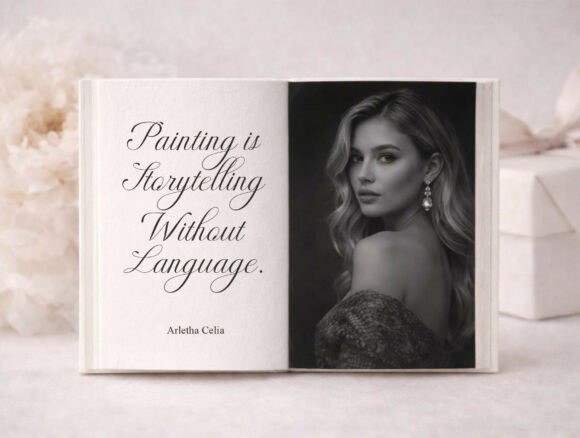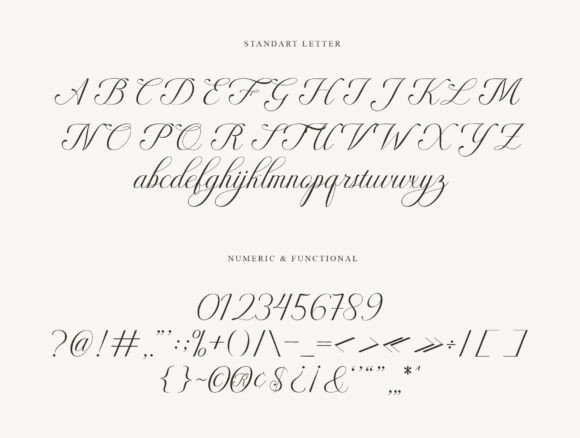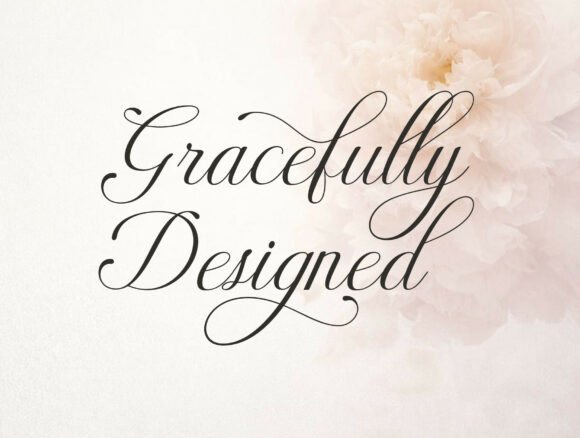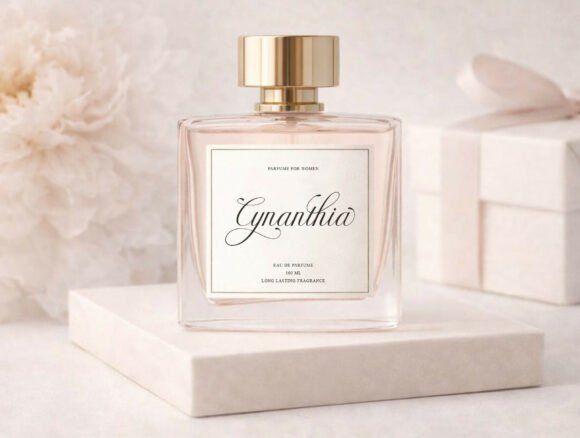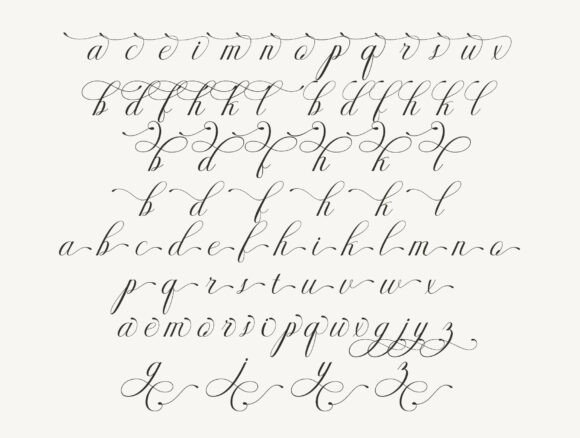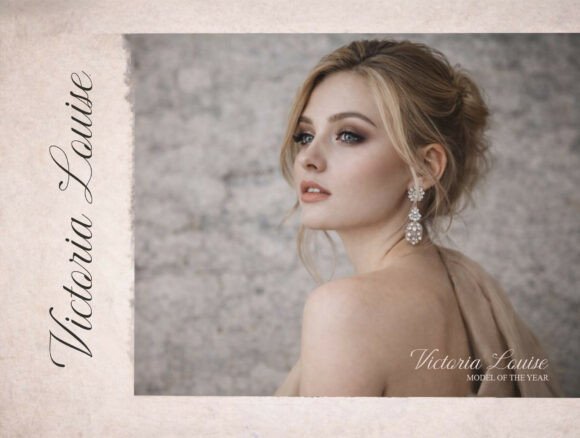
The Elusive Perfect Font: My Journey with Cynthera Grace
I still remember the design project that had me on a font hunt for what felt like an eternity. My client needed a sophisticated, feminine touch for their luxury perfume branding, and I was determined to find the perfect script font. After hours of scrolling through font libraries and testing out various options, I stumbled upon Cynthera Grace. It was love at first sight! 💕
This elegant script font has been a game-changer for my design projects, and I’m excited to share my experience with you. In this article, we’ll dive into the world of Cynthera Grace, exploring its features, uses, and some practical tips on how to make the most of this beautiful font.
Cynthera Grace: A Timeless Script Font
Cynthera Grace is an elegant and timeless script font designed to bring softness, romance, and luxury into every design. With its smooth flowing strokes, refined curves, and graceful swashes, this font is perfect for projects that require a feminine and sophisticated touch. Whether you’re working on wedding invitations, perfume branding, editorial layouts, or luxury packaging, Cynthera Grace delivers a graceful visual harmony that elevates your designs.
One of the standout features of Cynthera Grace is its beautiful alternates and stylish ligatures. The font supports multiple European languages with full extended Latin characters, making it a versatile choice for designers working with international clients. With Cynthera Grace, you can create natural, handwritten typography that feels both personal and polished.
- 💫 Elegant and sophisticated design
- ✅ Smooth flowing strokes and refined curves
- 🌟 Beautiful alternates and stylish ligatures
- 🌎 Supports multiple European languages
- 💻 Perfect for digital and print projects
While Cynthera Grace is an amazing font, there are a few things to keep in mind:
- 🤔 Some users may find the font a bit too ornate for certain projects
- ⚠️ May require some adjustments for optimal use in certain software or platforms
The Story Behind Cynthera Grace
Cynthera Grace was designed with the intention of creating a timeless script font that exudes elegance and sophistication. The designer aimed to craft a font that would bring a touch of luxury and romance to any project, while still feeling personal and approachable.
Q: What type of projects is Cynthera Grace best suited for?
A: Cynthera Grace is perfect for projects that require a feminine and sophisticated touch, such as wedding stationery, luxury branding, editorial designs, and fashion projects.
Q: Does Cynthera Grace support multiple languages?
A: Yes, Cynthera Grace supports multiple European languages with full extended Latin characters.